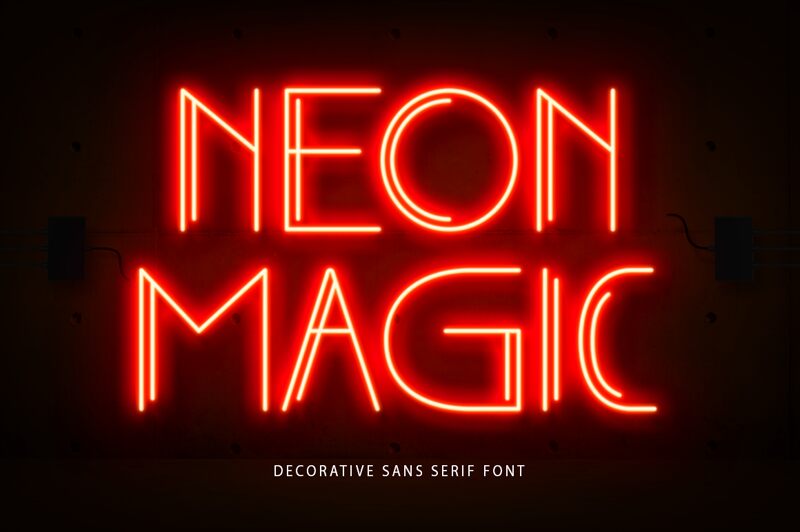
Neon Magic is a retro display font designed by Bayu Suwirya. It offers a light weight, perfect for projects that need to evoke nostalgia and a vintage feel. Whether it be posters, packaging or logos, Neon Magic will bring your project to life!
Neon Magic